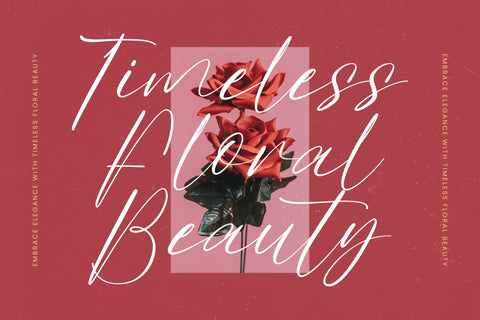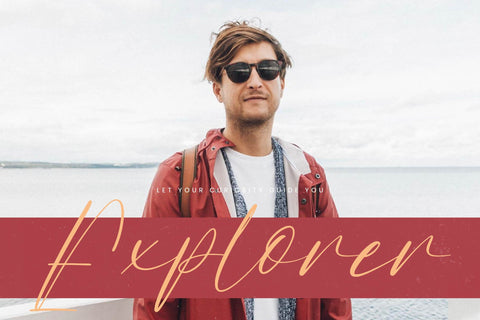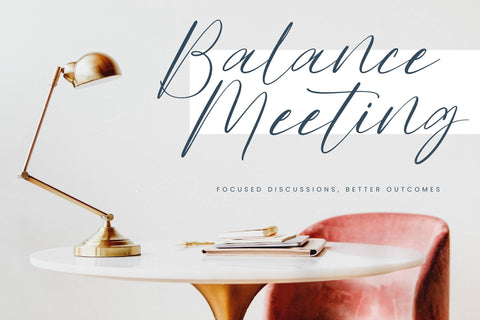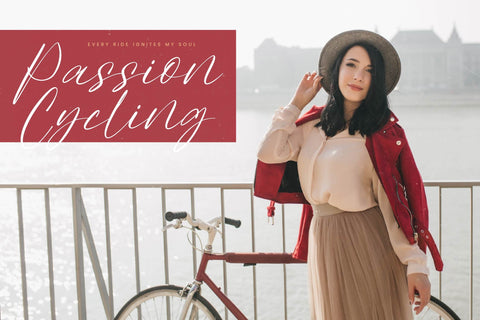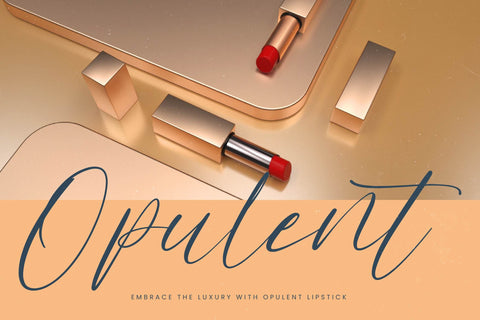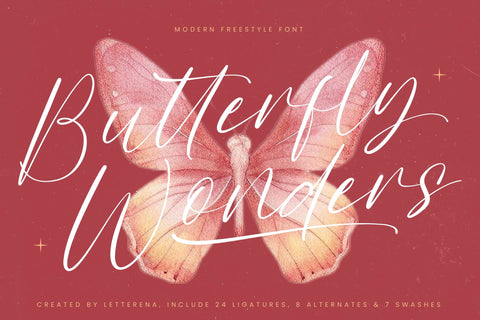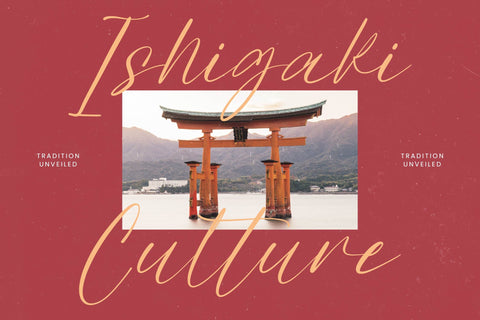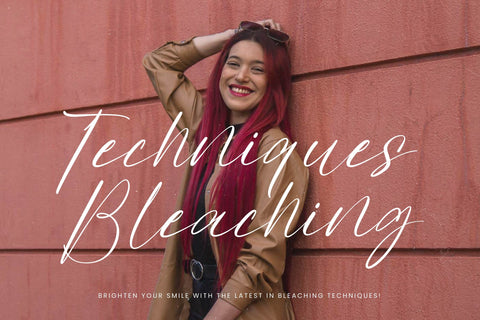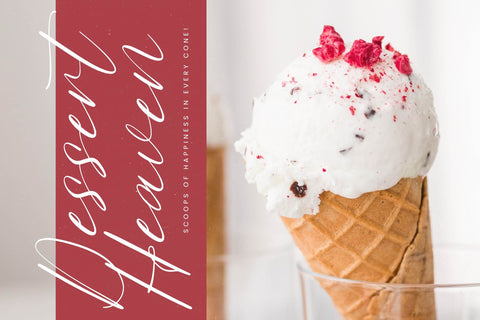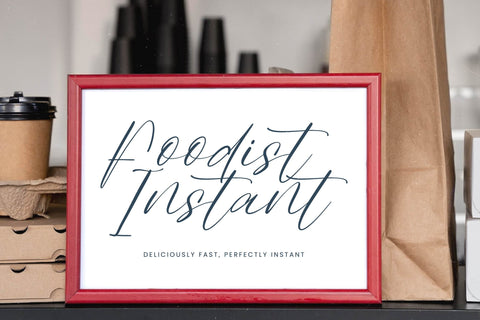
Butterfly Wonders - Modern Freestyle Font
Butterfly Wonders - Modern Freestyle Font , from Letterena, is a Luxury Script font, suitable for any projects such as: logos, branding projects, homeware designs, product packaging, mugs, quotes, posters, shopping bags, t-shirts, book covers, name card, invitation cards, greeting cards, label, photography, watermark, special events, and all your other luxury and beautiful projects that need a Luxury Script taste.